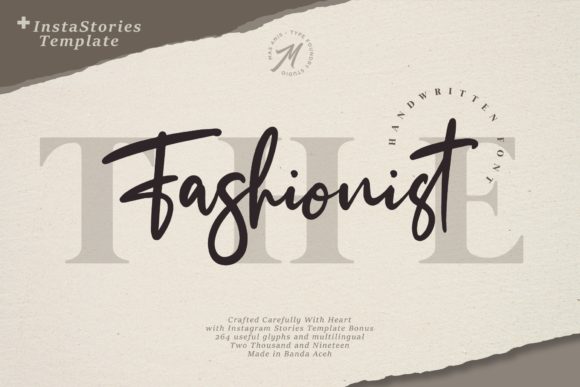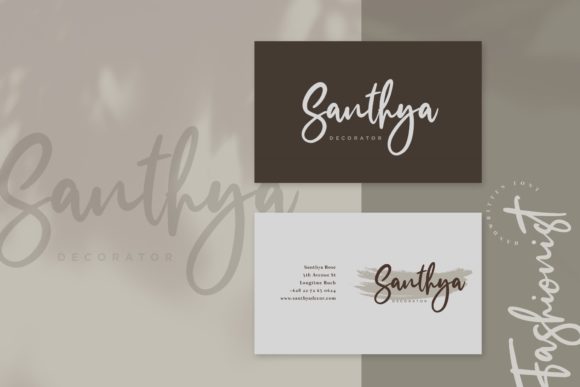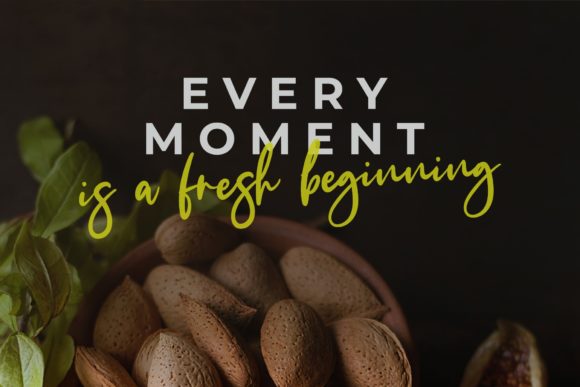
About The Fashionist Font
The Fashionist is a casual signature font with exquisite accents. It includes a full set of gorgeous uppercase and lowercase letters, numbers, a large selection of punctuation marks & ligatures and bonus Instagram Story Templates!